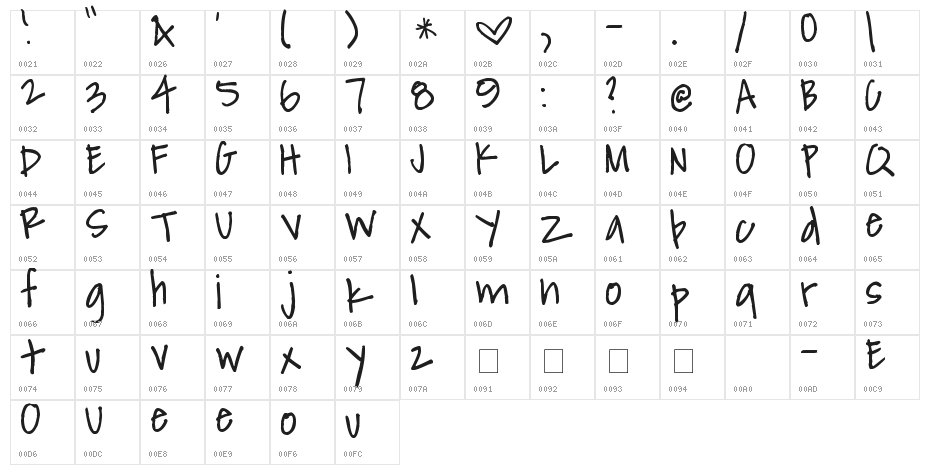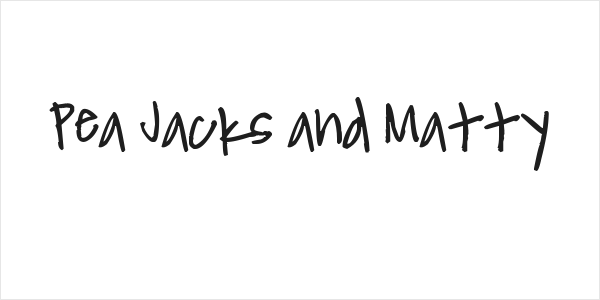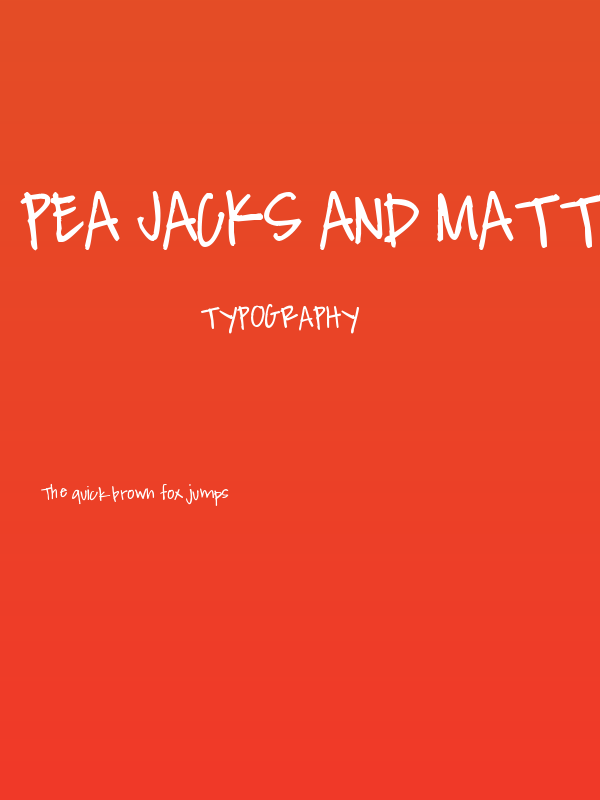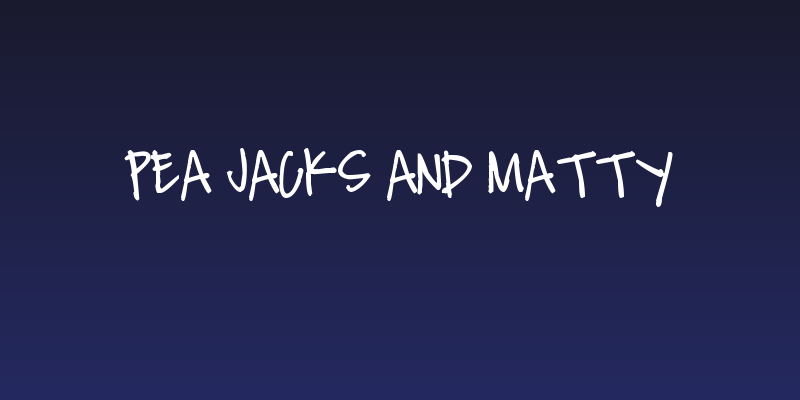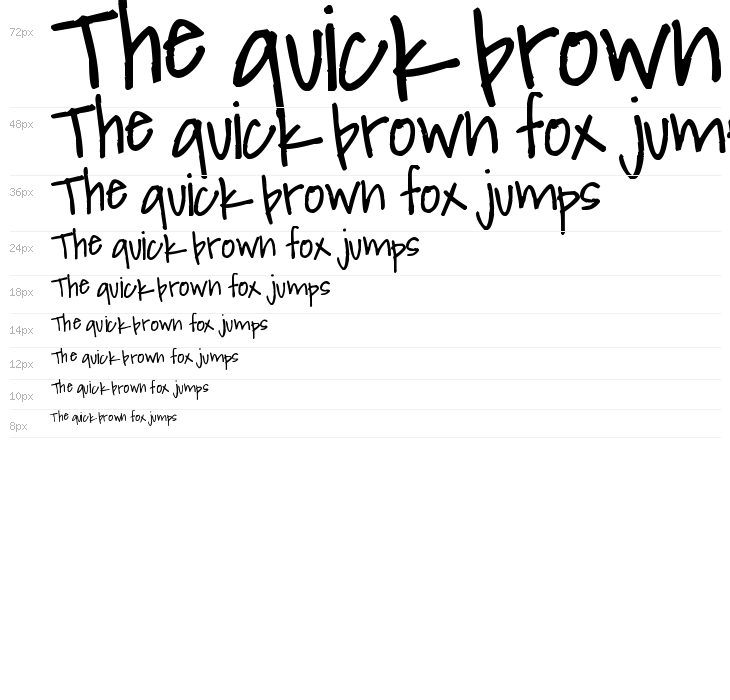
Pea Jacks and Matty Font
Pea Jacks and Matty Description
This font exudes a playful and casual handwritten style, characterized by its uneven strokes and slightly irregular letterforms. The uppercase and lowercase letters maintain a consistent flow, giving it an authentic, personal touch. The numbers and special characters follow the same informal aesthetic, making it ideal for projects that require a friendly and approachable feel. Its organic appearance is reminiscent of quick, spontaneous writing, adding a human element to any design.
| Use Case | Headlines, Informal text, Personal projects |
| Proposed Projects | Ideal for greeting cards, personal blogs, children's books, and informal branding. |